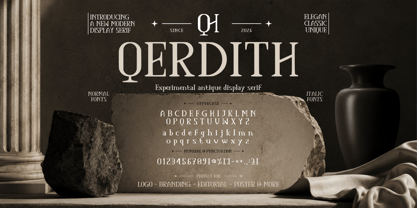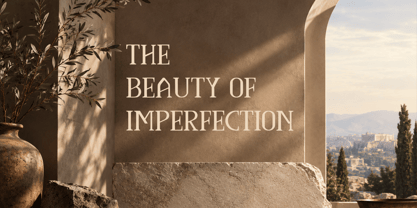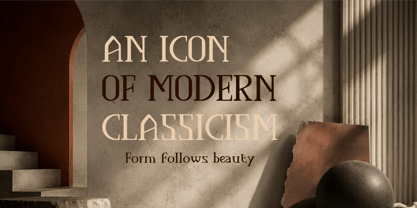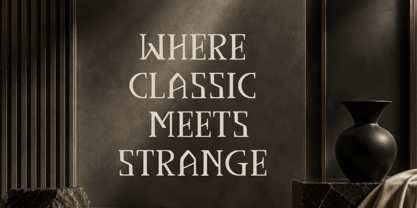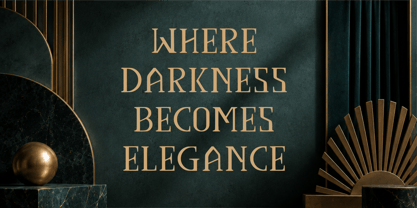
Qerdith
by Arif Novianto
The Qerdith Font Family was designed by Arif Novianto and published by Arif Novianto. Qerdith contains 2 styles and family package options. More about this family
ERDITH — Experimental Antique Display Serif
QERDITH is an experimental antique display serif typeface that blends classical elegance with a distinctive contemporary edge. Inspired by vintage typography, architectural forms, and refined editorial lettering, it features high-contrast strokes, sculptural serifs, and unusual letter details that give the typeface a sophisticated yet unconventional personality.
Designed to make a strong visual statement, QERDITH works beautifully for luxury branding, editorial layouts, fashion identities, posters, packaging, invitations, book covers, and sophisticated display typography. Its antique character adds timeless charm, while its experimental proportions and decorative details bring a modern artistic feel.
With its elegant uppercase forms and expressive lowercase characters, QERDITH is especially effective when used at large sizes where its unique letterforms can become the centerpiece of a design.
QERDITH — where antique elegance meets experimental typography.